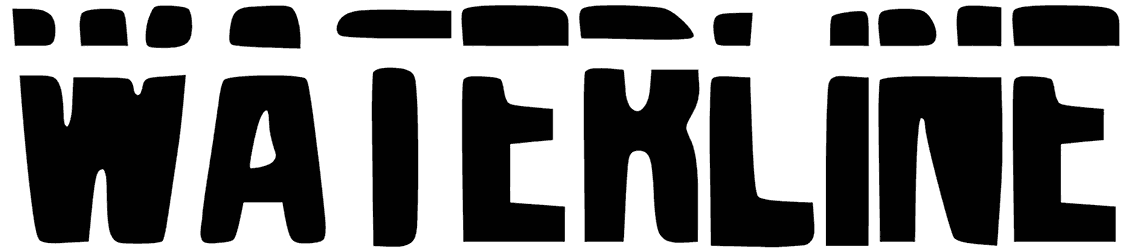
Waterline, a title font that can create an aesthetic effect, would lend a vintage look and feel to your digital works. Although this eroded font doesn’t have any lowercase letters, is picked for the bright colors given off in ads, flyers, fashion, and clothes. If you like conquering challenges, try it, the ultimate result will blow your customer’s head off.